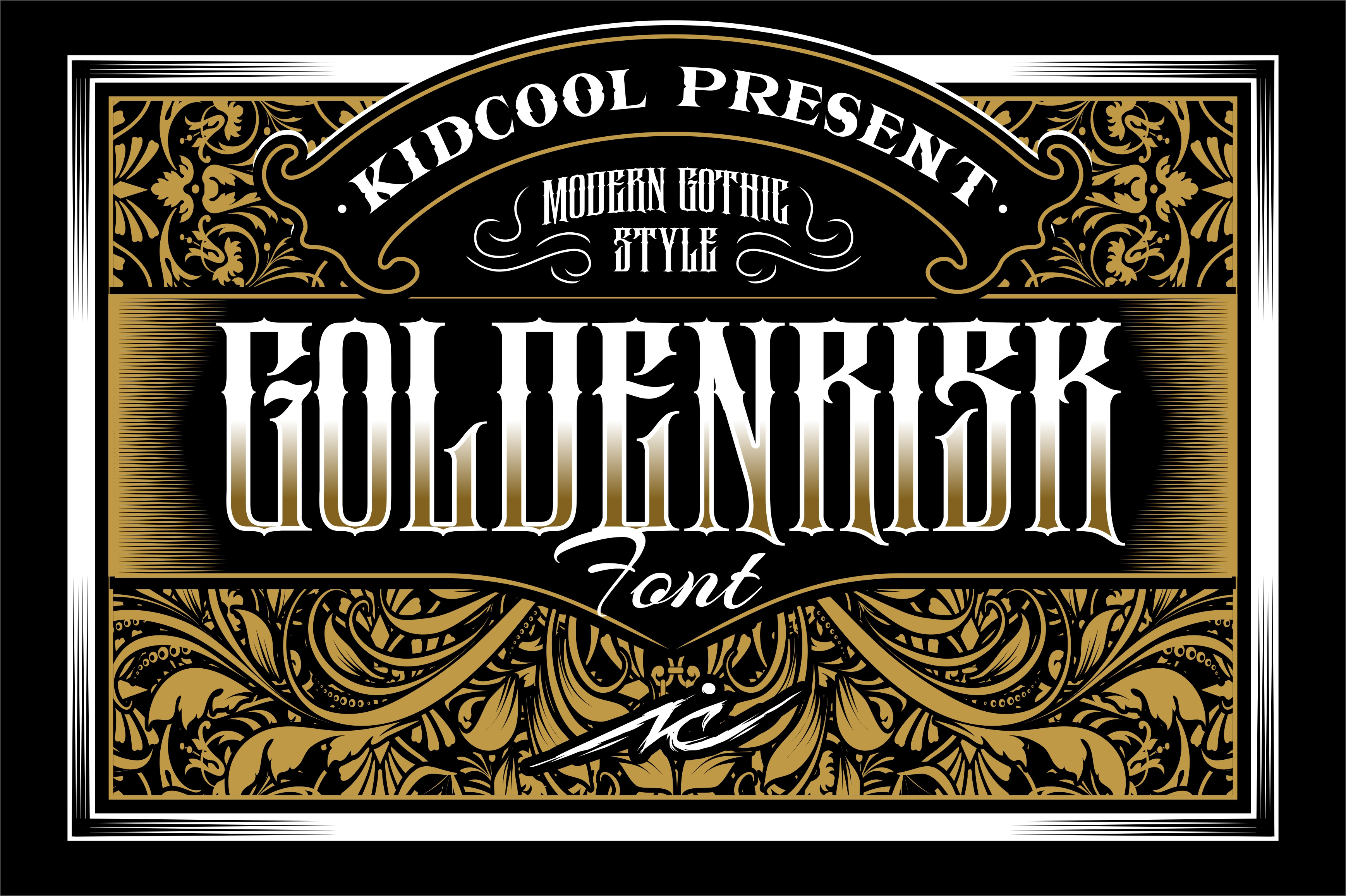
GOLDENRISK FONT
GOLDENRISK. this is a font with a modern gothic style, it is very suitable to explore the creativity of your work in the fields of logos, bands, posters etc.
Feature : Uppercase - lowercase - numeral - functional